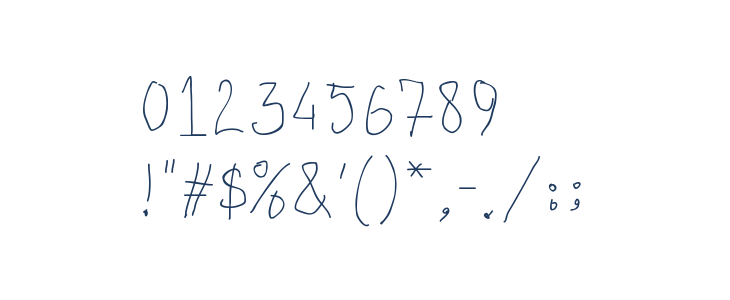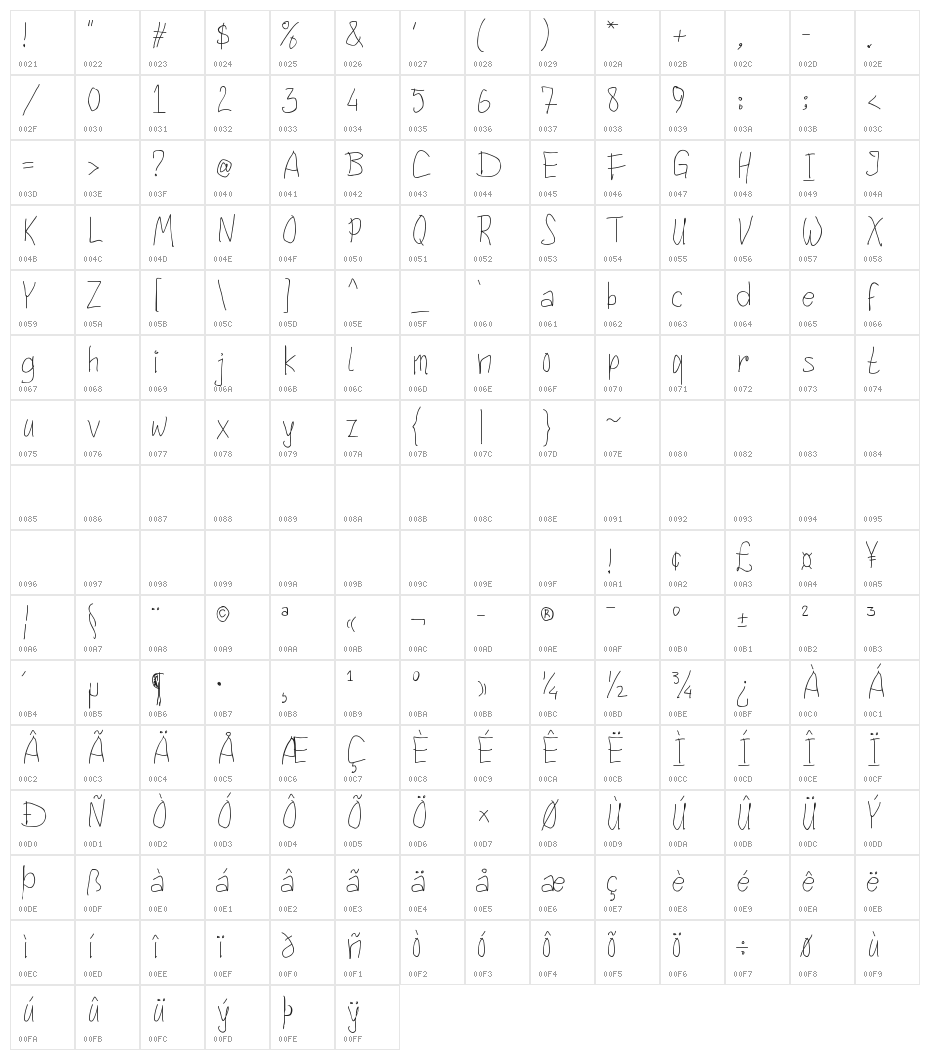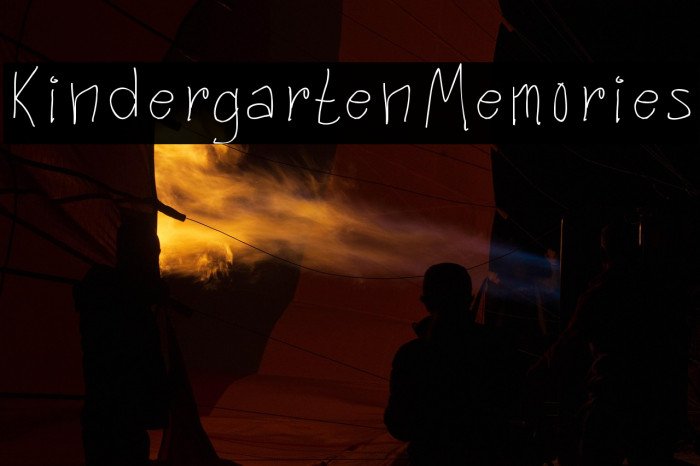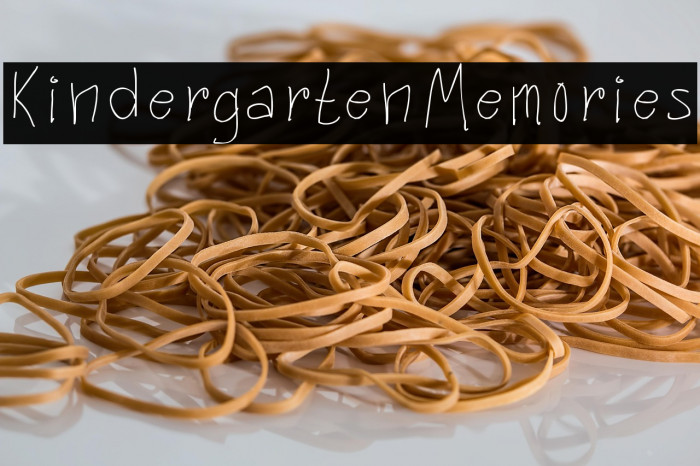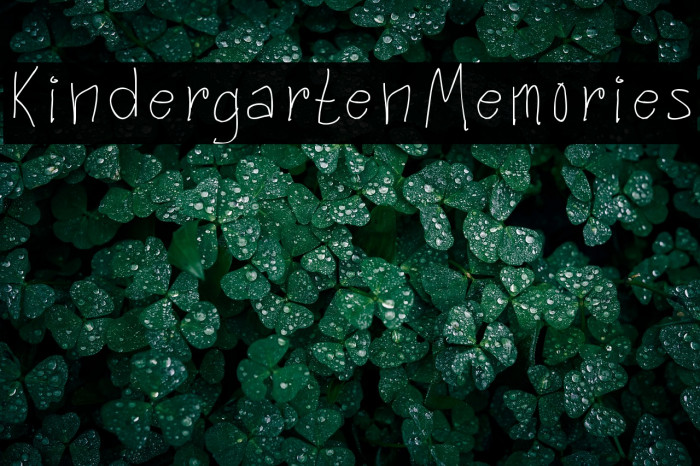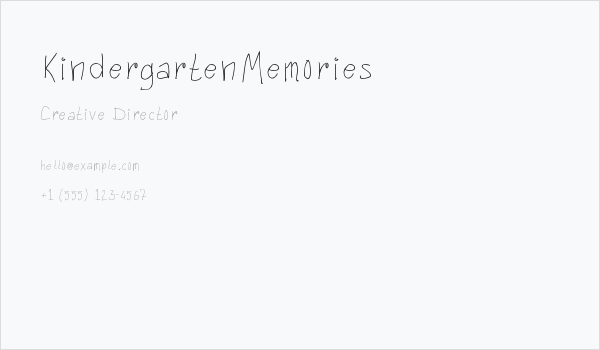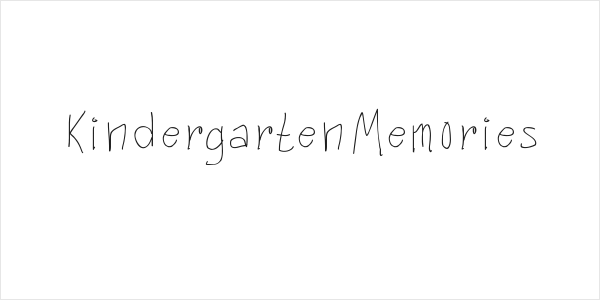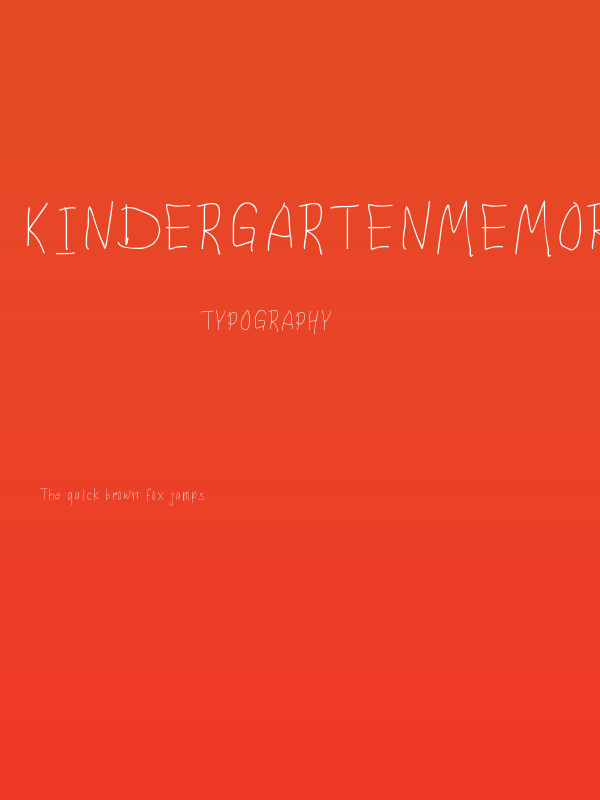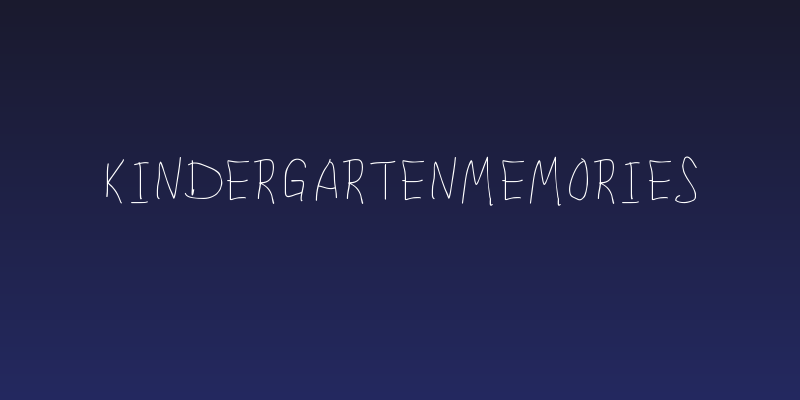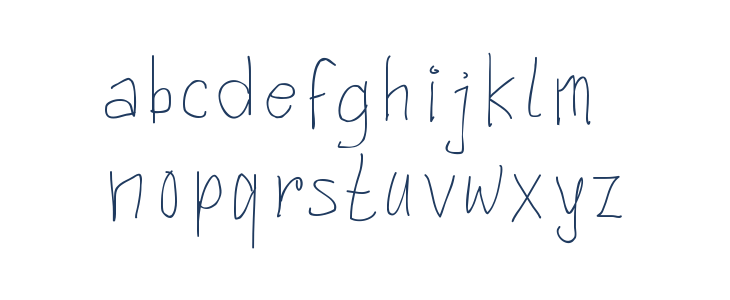
KindergartenMemories Font
KindergartenMemories Description
This font exudes a playful and whimsical charm, reminiscent of a child's handwriting. The letters are irregular and slightly wobbly, giving it an authentic, hand-drawn feel. The strokes are thin and uneven, adding to its informal and casual appearance. The uppercase and lowercase letters maintain a consistent style, with a slight tilt and varying heights that enhance its playful nature. Numbers and special characters follow the same quirky design, making it suitable for projects that require a touch of innocence and creativity.
| Proposed Projects | Ideal for children's books, educational materials, playful branding, and creative projects that require a touch of whimsy. |